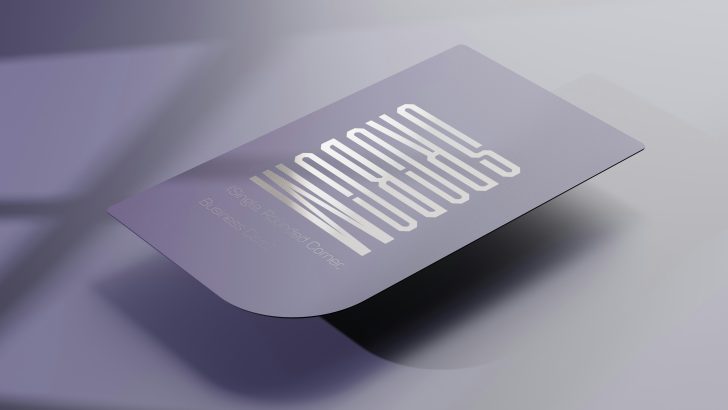
Choosing a beautiful font is important, but combining two fonts correctly can take a brand identity to the next level.
Luxury brands often use carefully selected font pairings to create balance, hierarchy, and sophistication. A strong combination helps logos, packaging, websites, and marketing materials feel more professional.
In this guide, we’ll explore the best font pairings for luxury branding in 2026.
Why Font Pairing Matters
Typography creates visual hierarchy.
A good font pairing helps customers quickly understand information while reinforcing your brand personality.
Successful font combinations improve:
- Logo design
- Packaging
- Business cards
- Websites
- Social media graphics
- Advertising materials
What Makes a Great Font Pairing?
The best font combinations share these characteristics:
Contrast
Combine fonts that are different enough to create visual interest.
Harmony
Different fonts should still feel like they belong together.
Readability
Typography should remain clear across all branding materials.
Consistency
Use the same font system throughout your brand identity.
Best Font Pairings for Luxury Brands
Elegant Serif + Minimal Sans Serif
This is one of the most popular combinations for premium brands.
Perfect for:
- Fashion labels
- Beauty brands
- Luxury hotels
- Jewelry businesses
High Contrast Serif + Clean Sans
Creates a modern editorial appearance.
Ideal for:
- Cosmetic packaging
- Perfume brands
- Premium magazines
Display Font + Sans Serif
Display fonts attract attention while sans serif fonts improve readability.
Best for:
- Product packaging
- Marketing campaigns
- Boutique brands
Classic Serif + Modern Sans Serif
A timeless combination that balances tradition and innovation.
Suitable for:
- Real estate branding
- Law firms
- Luxury consultants
Font Pairing Mistakes to Avoid
Avoid these common mistakes:
- Using fonts that are too similar
- Combining too many typefaces
- Ignoring readability
- Following temporary trends
- Creating inconsistent branding
Luxury Branding Trends in 2026
Typography trends continue to evolve.
Editorial Style Branding
Magazine-inspired typography remains popular.
Minimal Luxury
Simple layouts with sophisticated font combinations create premium experiences.
Custom Typography Systems
Many brands develop unique font pairings to stand out.
How to Choose the Right Font Pairing
Ask yourself:
- What personality should my brand communicate?
- Will the fonts work across all media?
- Are they readable at different sizes?
- Do they create a memorable identity?
The answers will help you build a stronger typography system.
Final Thoughts
The best luxury brands understand that typography is more than decoration. A well-planned font pairing creates elegance, consistency, and trust.
Whether you’re designing a logo, product packaging, or a complete brand identity, the right font combination can transform your project into a premium visual experience.